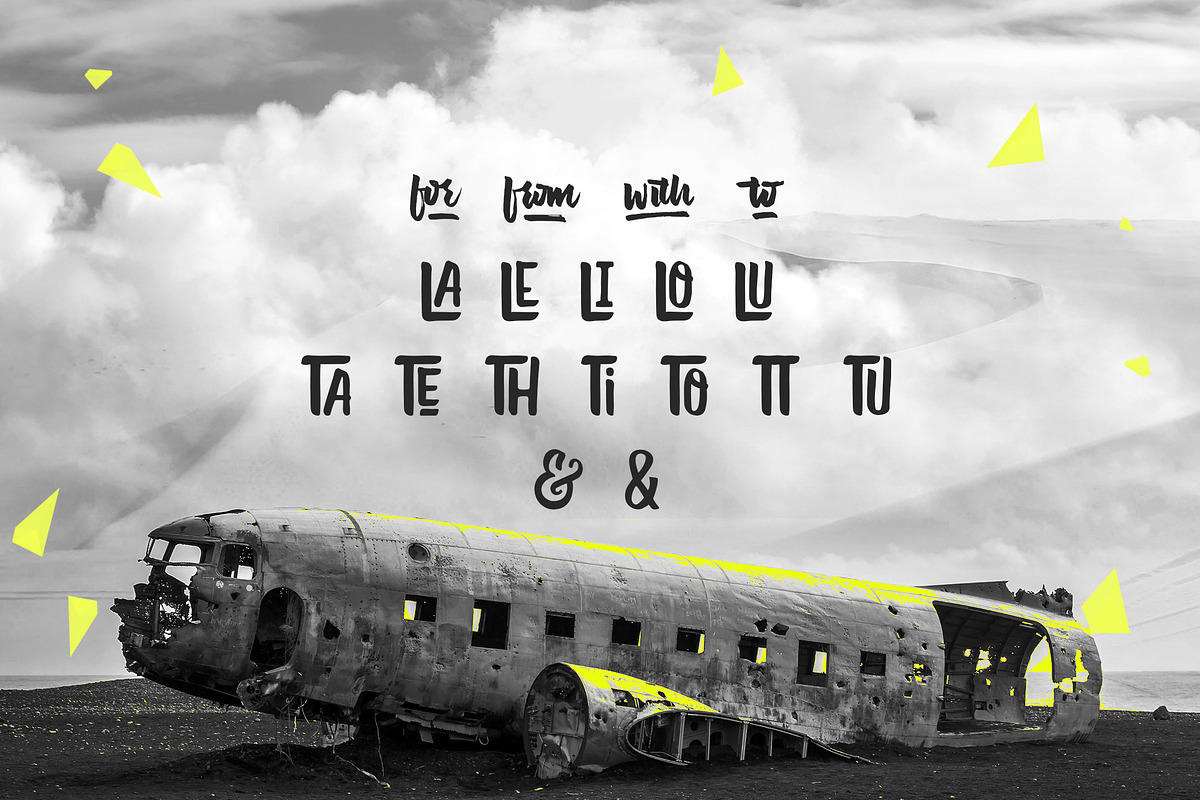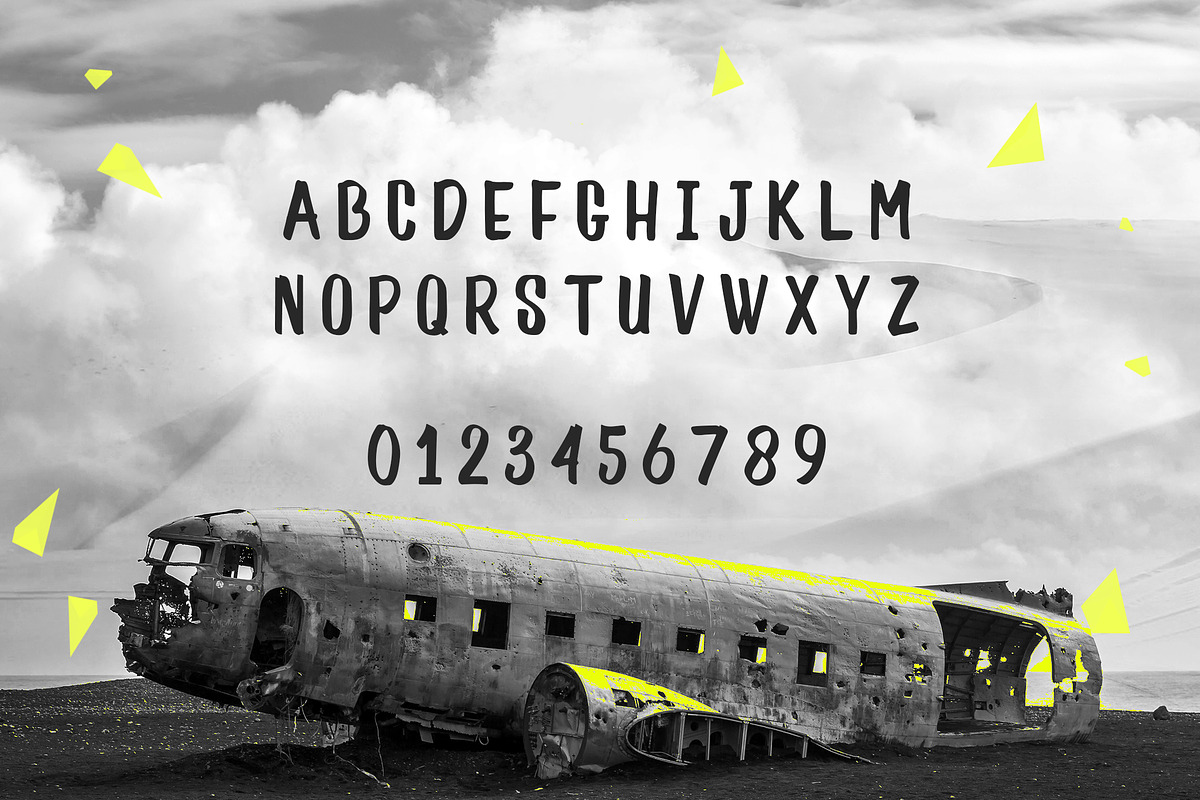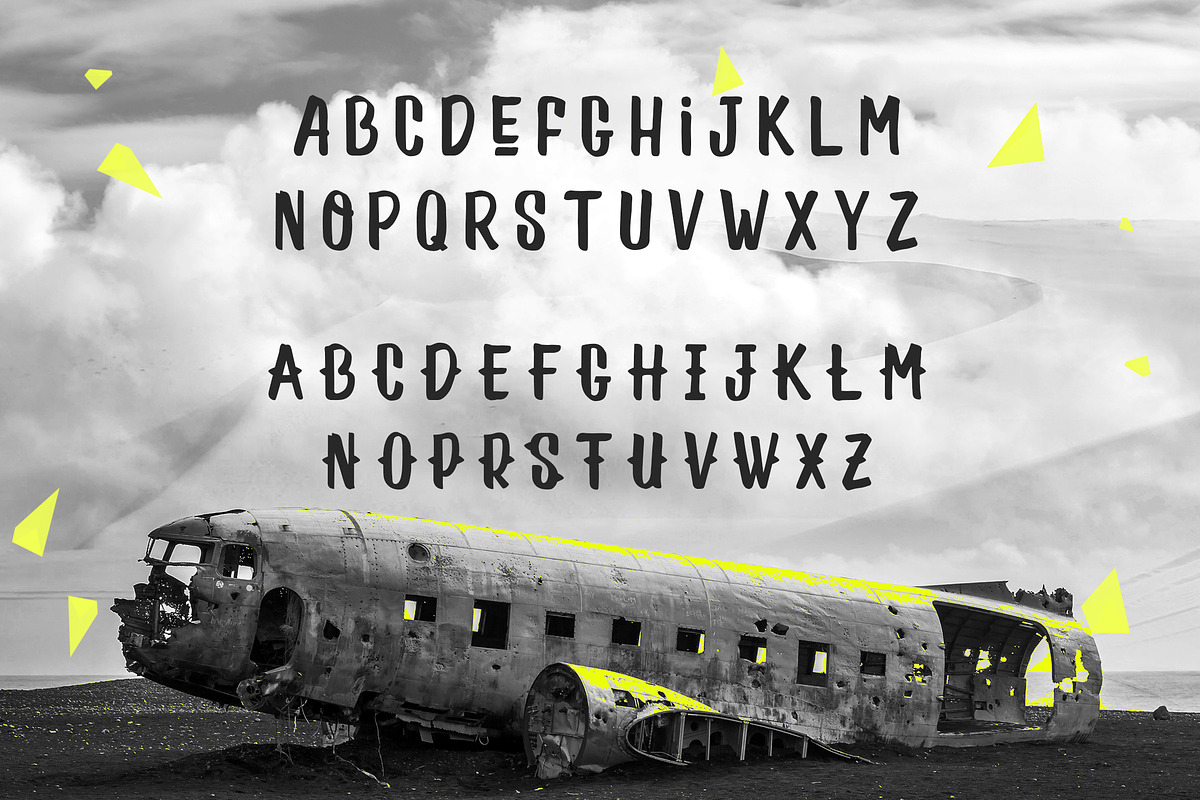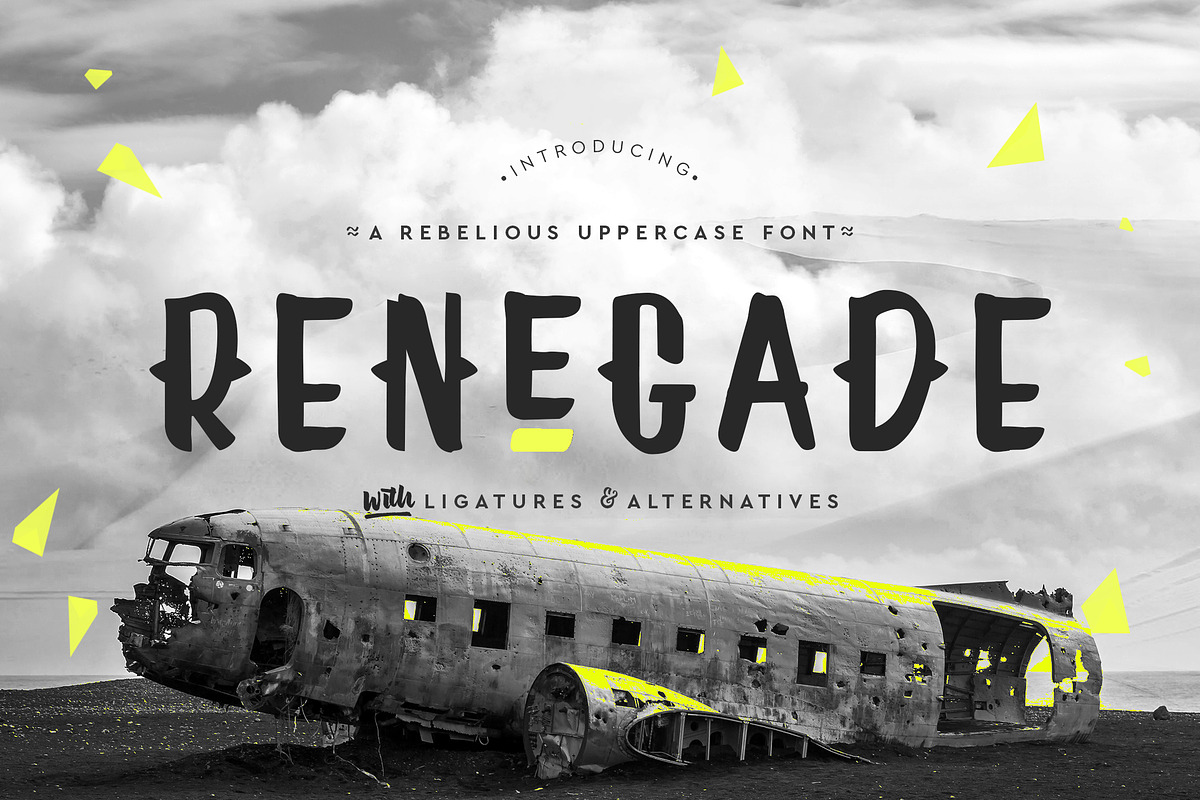
Renegade
Renegade by Font Bundles is a font selected for branding, posters, packaging, typography.
- Renegade is a rebellious uppercase font which packs a punch!
- With ligatures and alternatives you can use Renegade in different ways to achieve that all important look and feel in your design project.
Why Renegade is worth a look
Renegade by Font Bundles fits naturally into Branding, posters, packaging, typography.